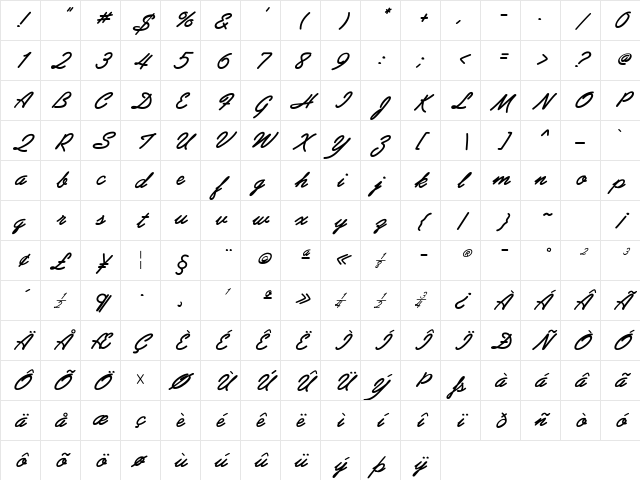
PreludeFLF Regular Free Font
PreludeFLF Regular
PreludeFLF Family
PreludeFLF Regular
Design Context for PreludeFLF
PreludeFLF is a composed and adaptable typeface that performs quietly and consistently across a wide range of design contexts.